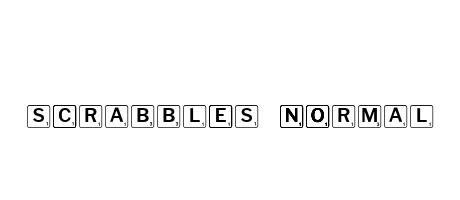
Scrabbles
By Rob HIndley
Scrabbles Normal: A playful, yet straightforward typeface, Scrabbles Normal channels the classic Scrabble tile aesthetic. Its simple, sans-serif letters are encased in crisp, square frames, reminiscent of the iconic game pieces. The font exudes a sense of casual sophistication, ideal for conveying a message with a touch of nostalgic charm.